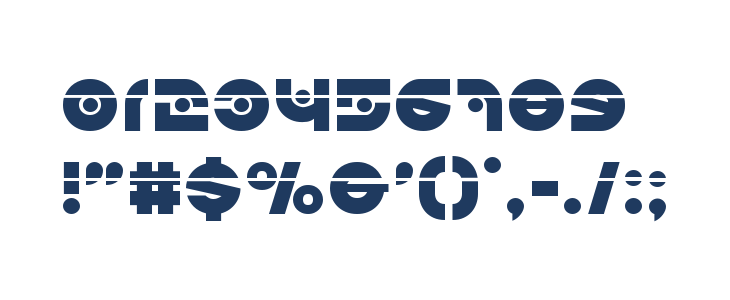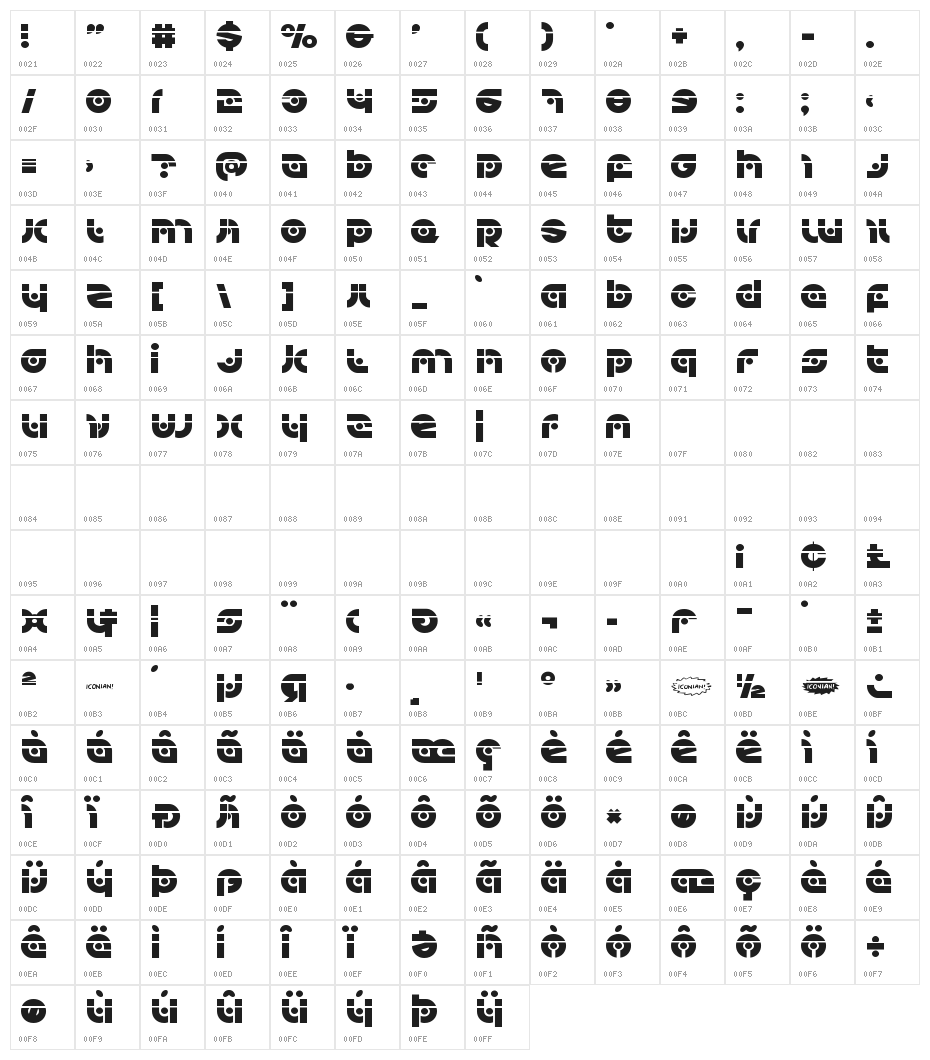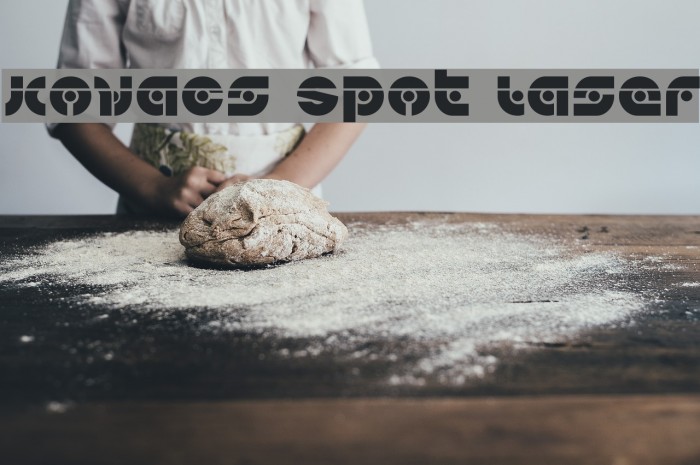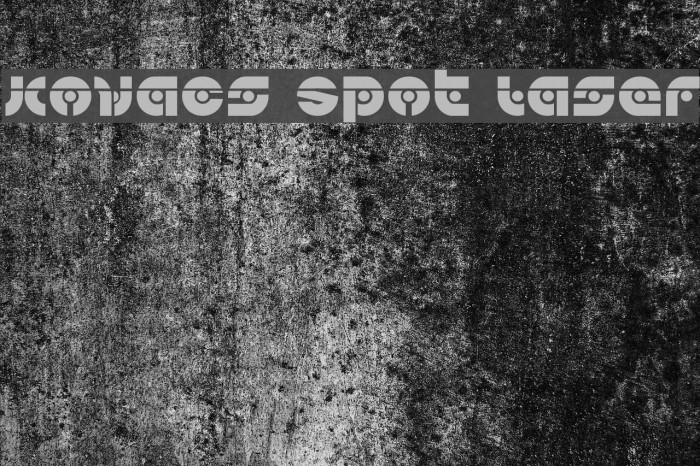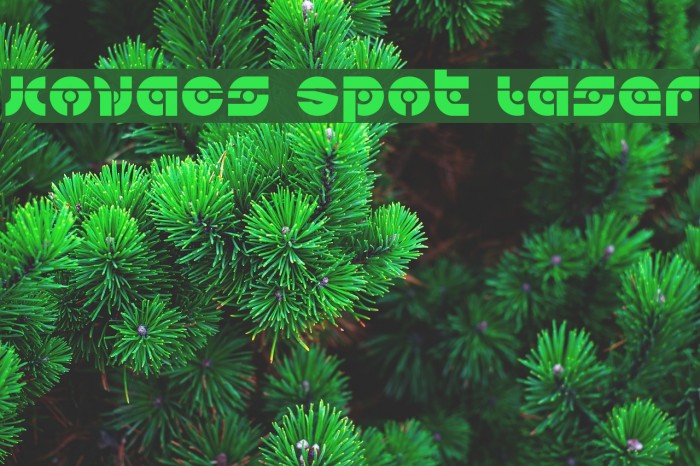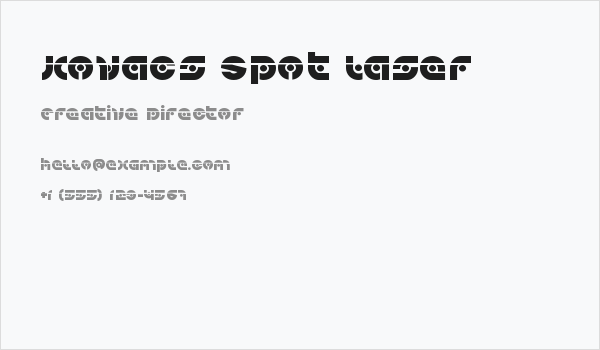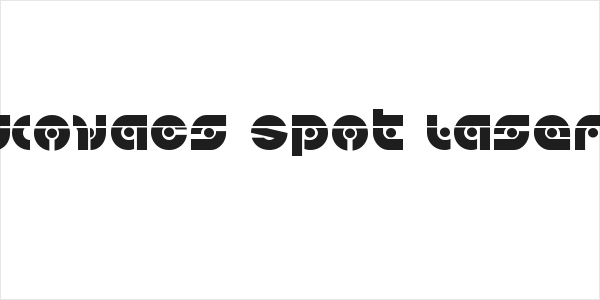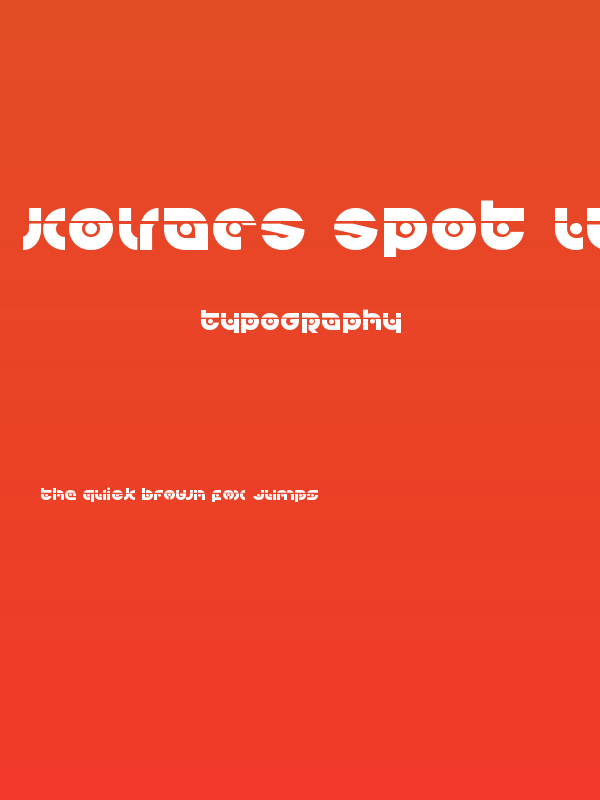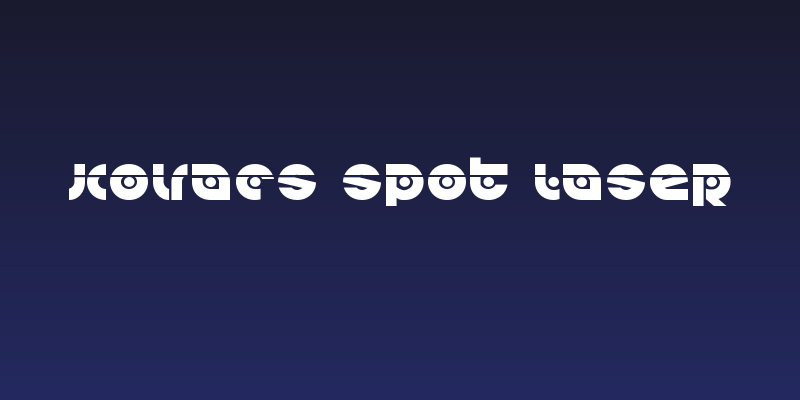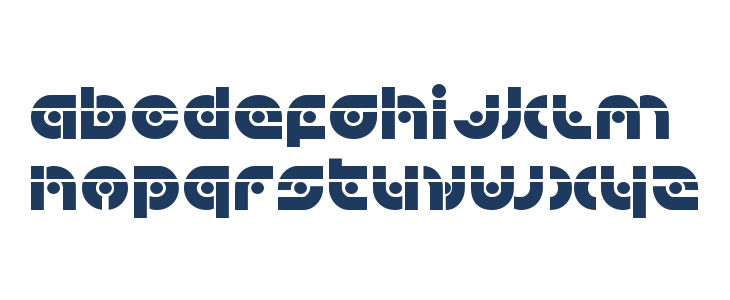
Kovacs Spot Laser Font
Kovacs Spot Laser Description
This font features a bold, geometric design with a futuristic and modern aesthetic. The characters are constructed with a combination of thick, solid strokes and circular cutouts, creating a unique and eye-catching appearance. The uppercase and lowercase letters share a consistent style, with a strong emphasis on symmetry and balance. The numerals and special characters maintain the same bold and geometric characteristics, ensuring a cohesive look across all glyphs. This design is highly stylized, making it ideal for projects that require a distinctive and modern touch.